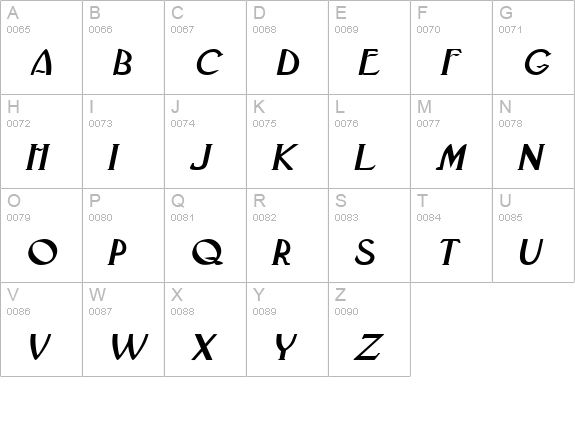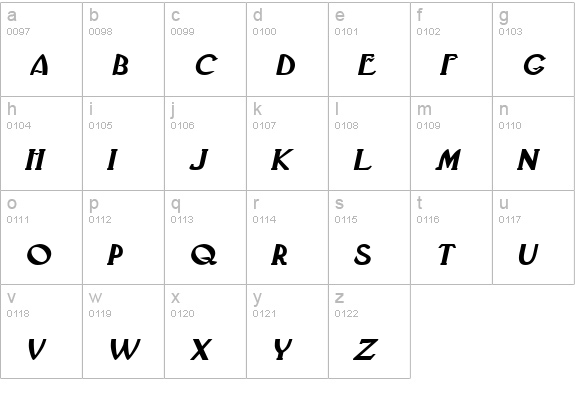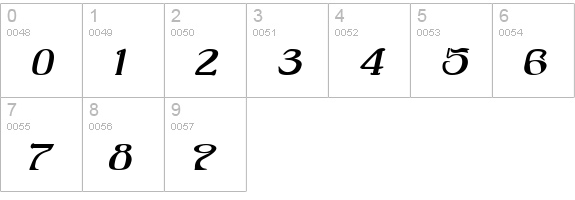
Deco-Extended Bold Italic is a strong, high-contrast, extended-width, italic variant in the Deco typeface family \xE2\x80\x94 well suited to headlines, attention-grabbing titles, and strong calls-to-action.
The Deco-Extended Bold Italic font is a stunning display typeface that exudes elegance and sophistication. With its bold and italicized styling, this font is perfect for making a statement in your designs. The unique deco-inspired design elements give it a modern yet timeless appeal, making it a versatile choice for a wide range of projects. What sets the Deco-Extended Bold Italic font apart is not only its striking appearance but also its versatility. Whether you're designing a poster, logo, website, or any other creative project, this font will add a touch of refinement and flair. Its bold strokes and italicized form make it ideal for creating eye-catching headlines and attention-grabbing text. And the best part? The Deco-Extended Bold Italic font is available for free download at FontsMarket.com. You can easily access this stylish and impactful typeface to elevate your designs and bring your creative vision to life. Don't miss out on the opportunity to enhance your projects with this unique and sophisticated font. Download the Deco-Extended Bold Italic font today and make a bold statement with your designs!